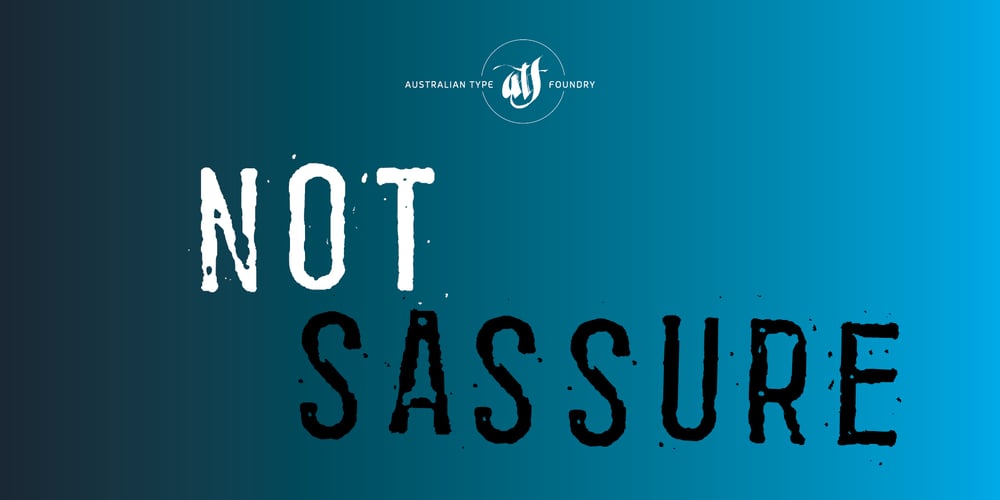
Not Sassure
Not Sassure font
Not Sassure Font Family was designed by Wayne Thompson and published by Australian Type Foundry. Not Sassure contains 1 styles and family package options. Excessive photocopying, with extreme enlargements and reductions to magnify the imperfections, helped to rough the edges and give Not Sassure a non-digital quality.